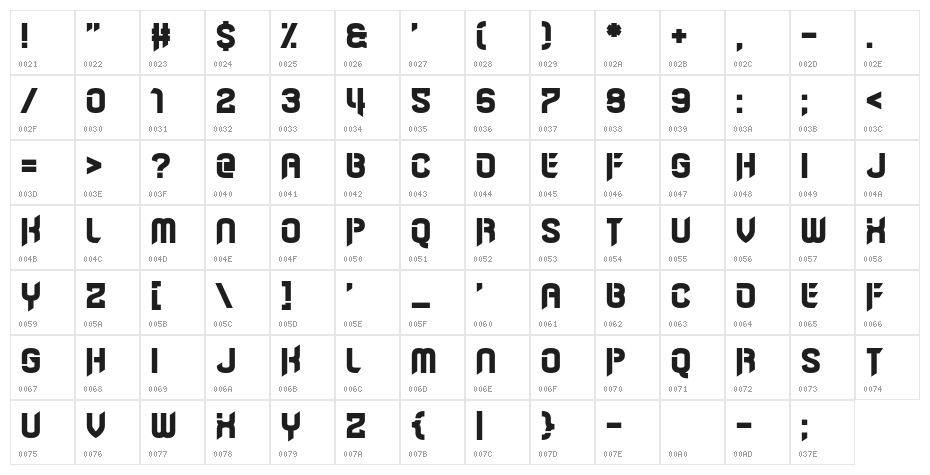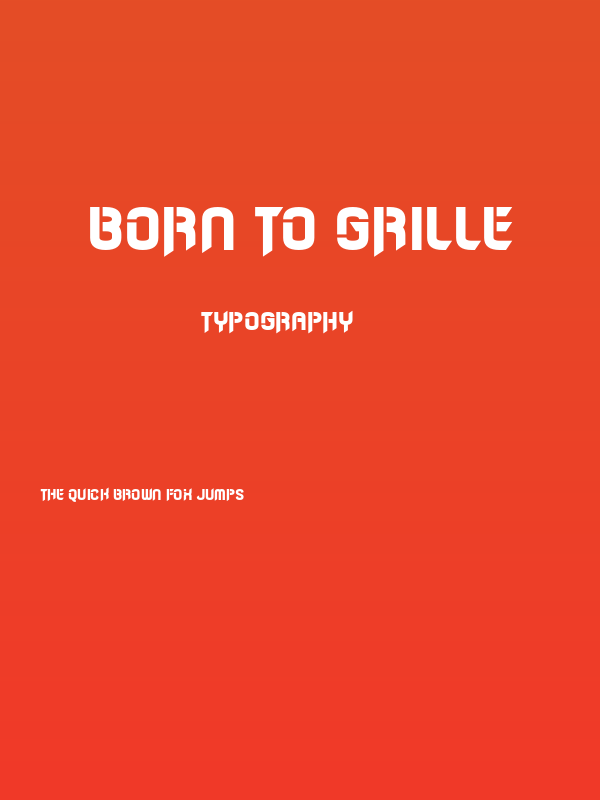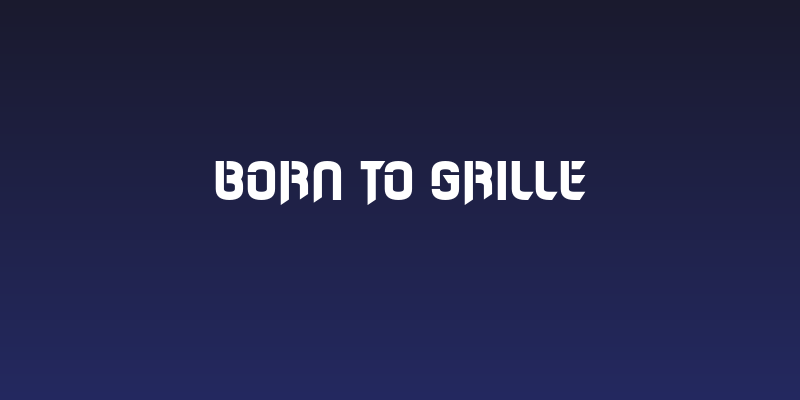
Born to Grille Font
Born to Grille Description
This font features a bold, geometric design with a modern and industrial feel. The characters are constructed with sharp angles and straight lines, giving them a strong and assertive appearance. The uppercase and lowercase letters maintain a consistent style, with a uniform width that enhances readability. The numbers and special characters follow the same design principles, ensuring a cohesive look across all text elements. This font's unique style makes it suitable for projects that require a bold statement, such as branding, advertising, and signage.
| Use Case | Headlines, Logos, Signage |
| Proposed Projects | Ideal for branding, advertising, signage, and any project needing a strong, modern look. |